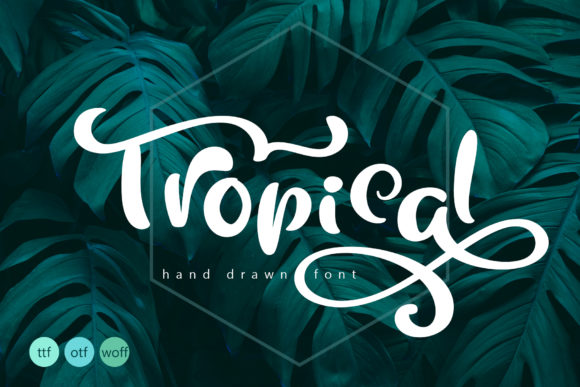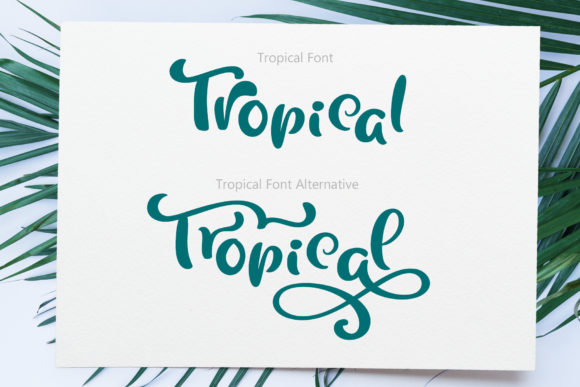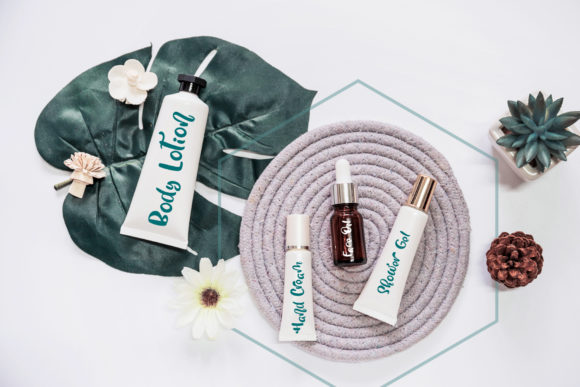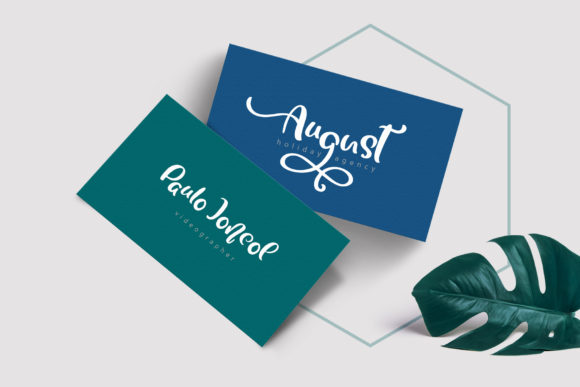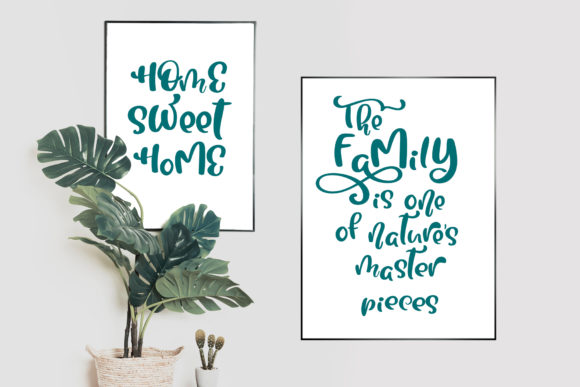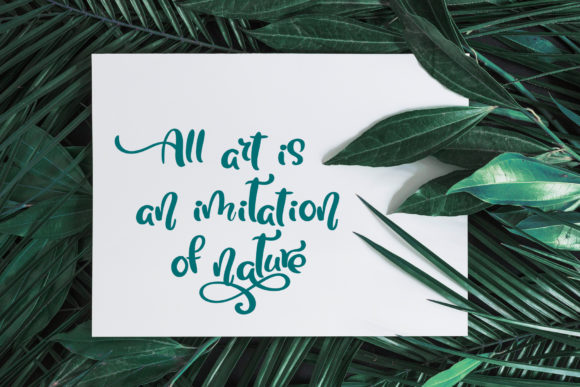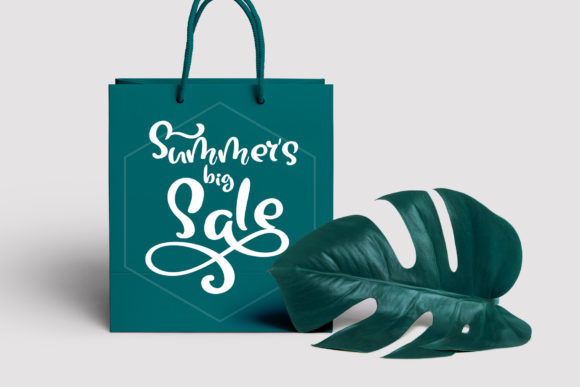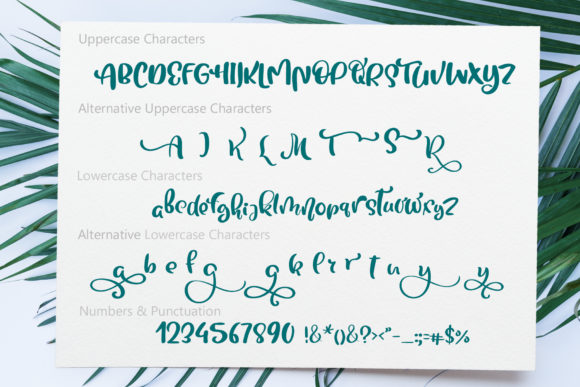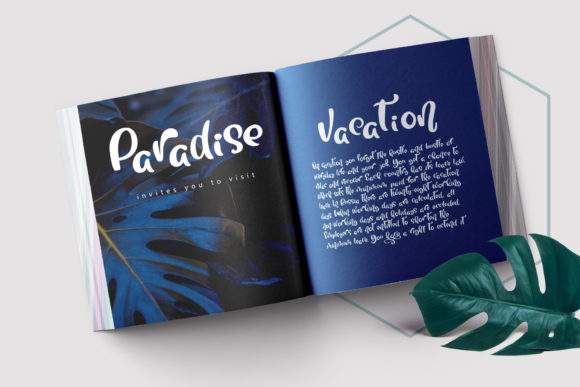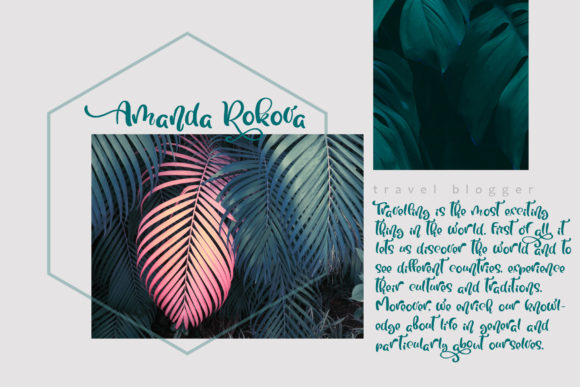
Tropical Font
About Tropical Font
Tropical is a unique handmade calligraphic font! Updating classic calligraphy with a contemporary twist, it will put a lovely spin on any design project!